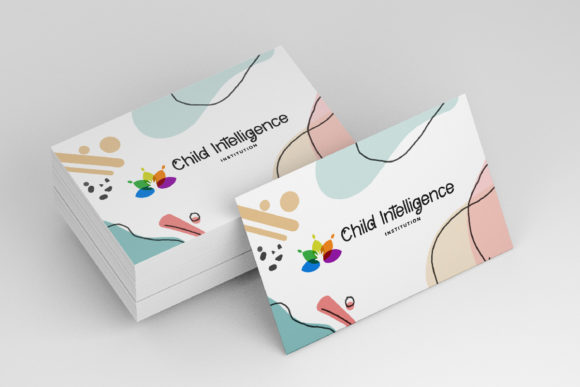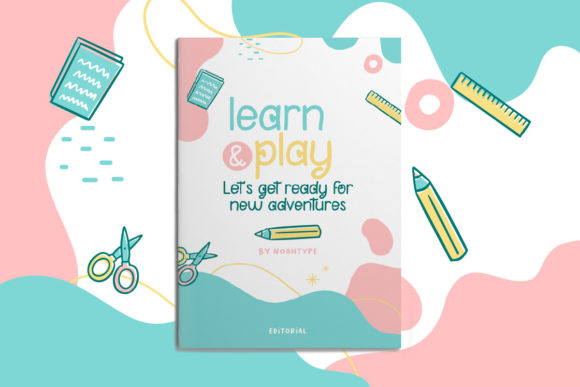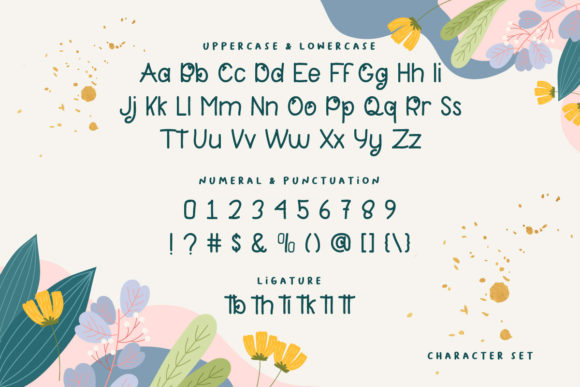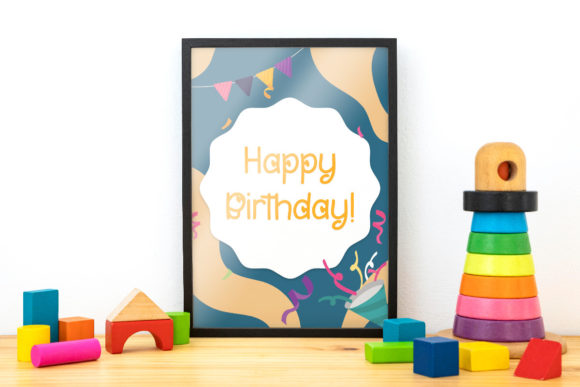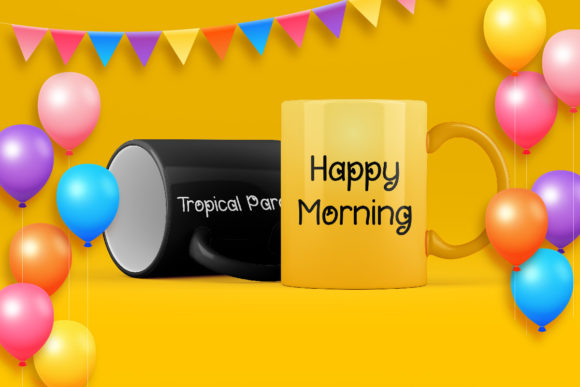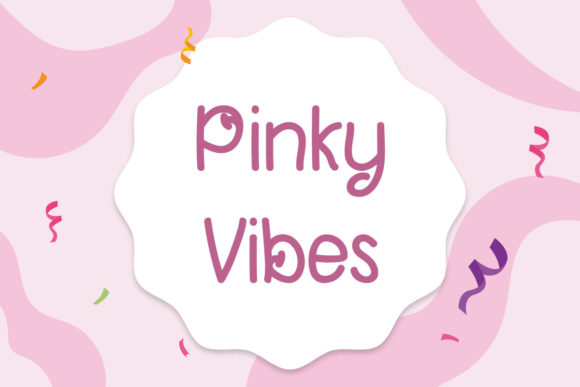
Unleash Your Creativity with the Back Green Font
Have you ever sat down with a blank page, a pen in hand, and a spark of inspiration that refuses to be contained? That’s exactly the kind of moment when the right font can make all the difference. For designers and crafty enthusiasts alike, the perfect font can elevate an idea from bland to grand.
Enter the Back Green Font, a playful handwritten font that embodies the carefree spirit of comic-inspired design. Its simple yet charming style gives any project a natural, inviting feel that’s impossible to resist. Whether you’re designing a new logo, creating a handmade card, or crafting a unique brand identity, the Back Green Font is the perfect companion to bring your vision to life.
With its unique blend of whimsy and sophistication, the Back Green Font is a valuable addition to any designer’s toolkit. Its versatility and charm make it an excellent choice for projects that require a touch of personality and creativity. So why settle for a generic font when you can unleash your inner artist with the Back Green Font?
- Unique Characteristic: Back Green Font features a distinctive, modern design with a subtle green tint, making it perfect for creating eye-catching and professional-looking designs.
Back Green Font Review
At first glance, the Back Green Font catches my eye with its unique blend of modern and vintage elements. ✨ The combination of a bold, geometric base with delicate, hand-drawn details creates a fascinating visual tension. I appreciate the way the font’s curves and lines seem to dance across the page.
However, as I delve deeper into the font’s capabilities, I notice some limitations. ⚠️ For one, the font’s legibility can be compromised in certain situations. When scaled down or used in body text, the delicate details can become lost, making it difficult to read. Additionally, the font’s lack of uniformity across different weights and styles can be jarring.
Here are some specific areas where the font shines and falls short:
- Unique blend of modern and vintage elements ✨
- Delicate, hand-drawn details add a touch of elegance
- Can be used effectively in headings and titles
- Legibility can be compromised in certain situations ⚠️
- Lack of uniformity across different weights and styles
- Can be challenging to read in body text
Overall, the Back Green Font is an intriguing choice for designers seeking to add a touch of whimsy and personality to their projects. While it may not be the most practical or versatile font, its unique character makes it a great option for those looking to make a statement.
For best results, pair the Back Green Font with a contrasting color scheme to make your design stand out.
Use the Back Green Font to create eye-catching headings and titles in your designs.
Use the Back Green Font to add a touch of sophistication to your presentations and documents.
The Back Green Font is perfect for:
- Creating eye-catching headings and titles.
- Adding a touch of sophistication to presentations and documents.
- Designing branding materials, such as logos and business cards.